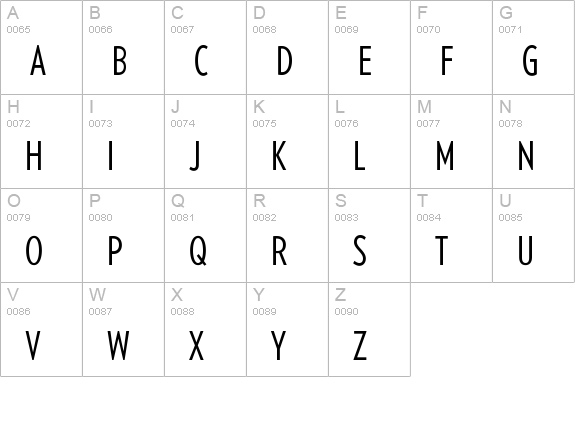
Verlag Compressed Book is a comfortable, highly readable, condensed-width variant in the Verlag typeface family \xE2\x80\x94 well suited to long-form body text, articles, and editorial content.
Verlag Compressed Book is a modern and sleek typeface that exudes elegance and sophistication. With its condensed letterforms and clean lines, this font is perfect for conveying a sense of professionalism and style in any design project. Whether you're creating a sleek logo, a minimalist website, or a refined print layout, Verlag Compressed Book will elevate your work to the next level. What makes Verlag Compressed Book even more appealing is that it is freely available to download at FontsMarket.com. This means that you can easily access this high-quality font without any cost, making it a valuable addition to your font collection. Don't miss out on the opportunity to enhance your designs with the timeless beauty of Verlag Compressed Book. Download it now and start creating stunning visuals that stand out from the rest.